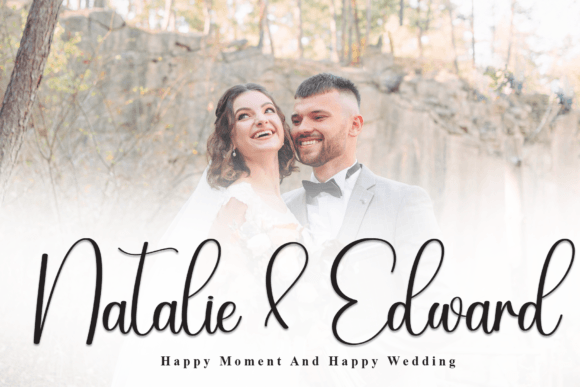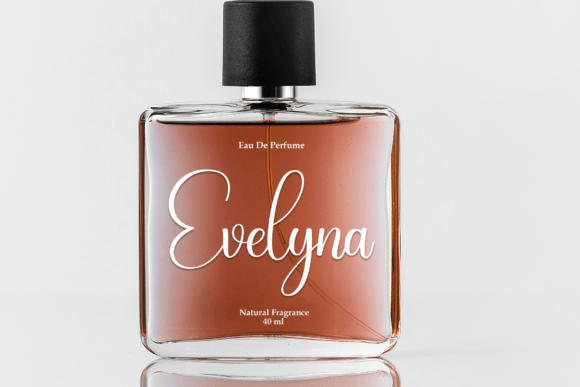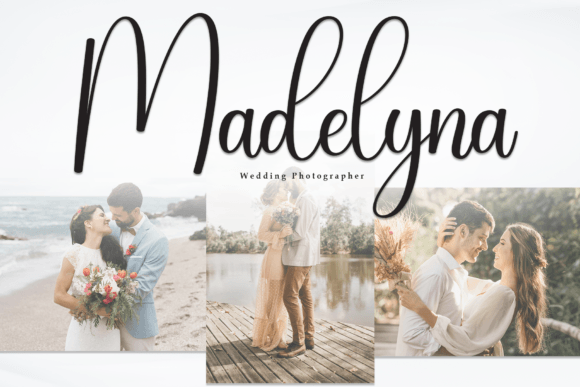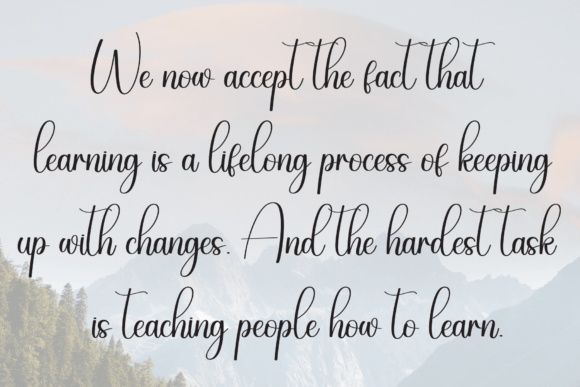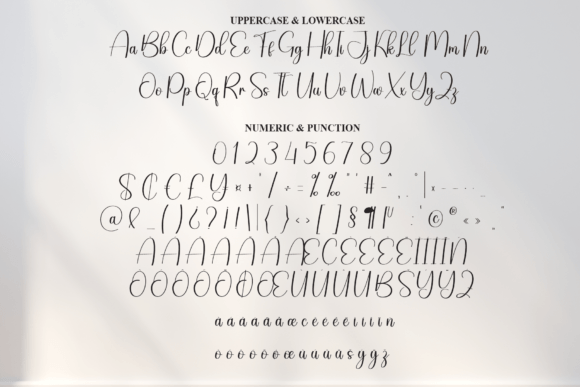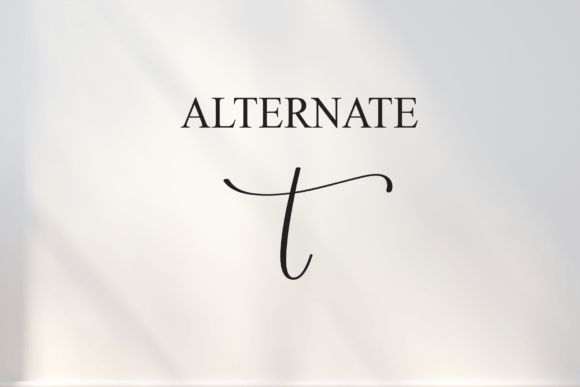
Introducing Another Font: Elevate Your Designs with Unique Typography
Are you tired of using the same old fonts in your designs? Look no further! Another Font is here to revolutionize the way you create, with a fresh and exciting take on typography. Our font is designed to provide you with an extraordinary experience, perfect for a wide range of projects, from wall displays and wedding invitations to social media posts, logos, advertisements, product packaging, and more.
What Sets Another Font Apart?
Our font is not just another addition to your typography arsenal. It’s a game-changer. With its latest style letters, Another Font is perfect for designers and crafters who want to add a touch of elegance and sophistication to their work. Whether you’re creating a stunning visual display, a beautiful wedding invitation, or a compelling social media post, our font will help you stand out from the crowd.
The versatility of Another Font is one of its most significant advantages. This font is perfect for:
- Wall displays: Create eye-catching wall art that will leave a lasting impression.
- Wedding invitations: Add a touch of romance and elegance to your wedding stationery.
- Social media posts: Elevate your social media game with stunning text-based graphics.
- Logos: Create a unique and memorable logo that represents your brand.
- Advertisements: Grab attention with bold and eye-catching typography.
- Product packaging: Add a professional touch to your product packaging.
- Product designs: Create beautiful and functional product designs.
- Labels: Design labels that are both informative and visually appealing.
- Photography: Add a touch of personality to your photos with custom watermarks.
- Invitations: Create stunning invitations for any occasion.
- Stationery: Elevate your stationery with beautiful and unique typography.
Why Choose Another Font?
There are many fonts available, but Another Font stands out from the rest. Here are just a few reasons why:
- Unique design: Our font has a unique and stylish design that will elevate your work.
- High-quality: We pride ourselves on delivering high-quality fonts that are both functional and beautiful.
- Versatility: Another Font is perfect for a wide range of projects, making it a valuable addition to your design toolkit.
Don’t settle for ordinary typography. With Another Font, you can take your designs to the next level. Whether you’re a professional designer or a crafter, our font is perfect for anyone looking to add a touch of elegance and sophistication to their work. So why wait? Get your copy of Another Font today and start creating stunning designs that will leave a lasting impression.
In conclusion, Another Font is a game-changing addition to any designer’s toolkit. With its unique and stylish design, versatility, and ease of use, it’s the perfect choice for anyone looking to elevate their designs. Whether you’re working on a personal project or a professional one, our font is sure to impress. So don’t wait – get your copy of Another Font today and start creating extraordinary designs that will leave a lasting impression.